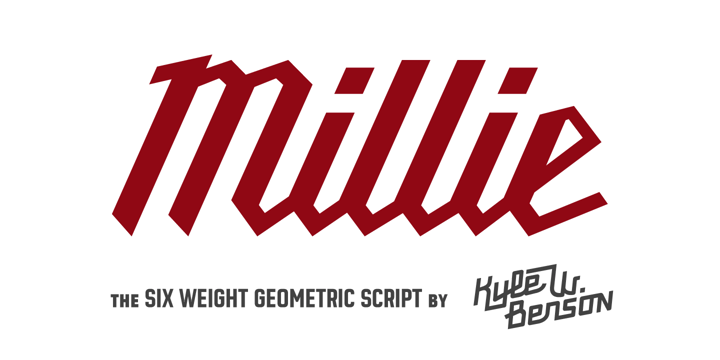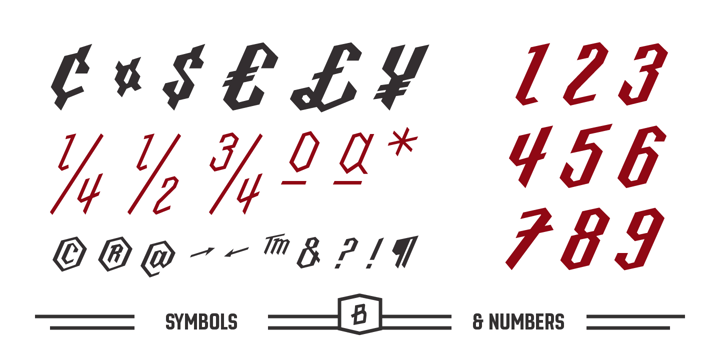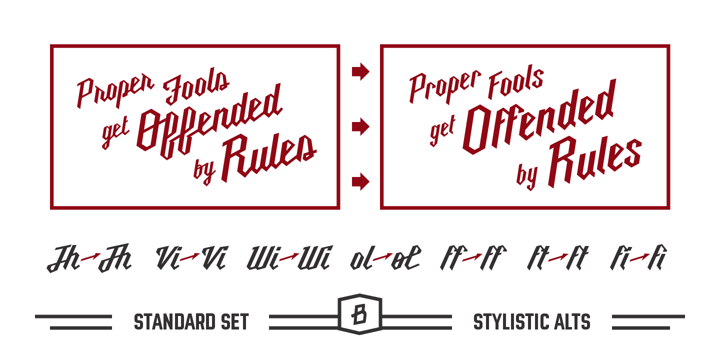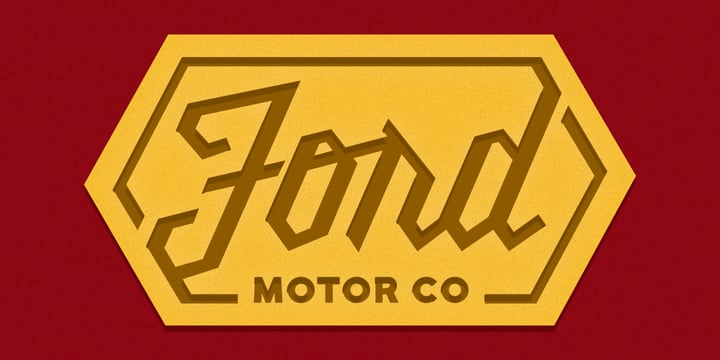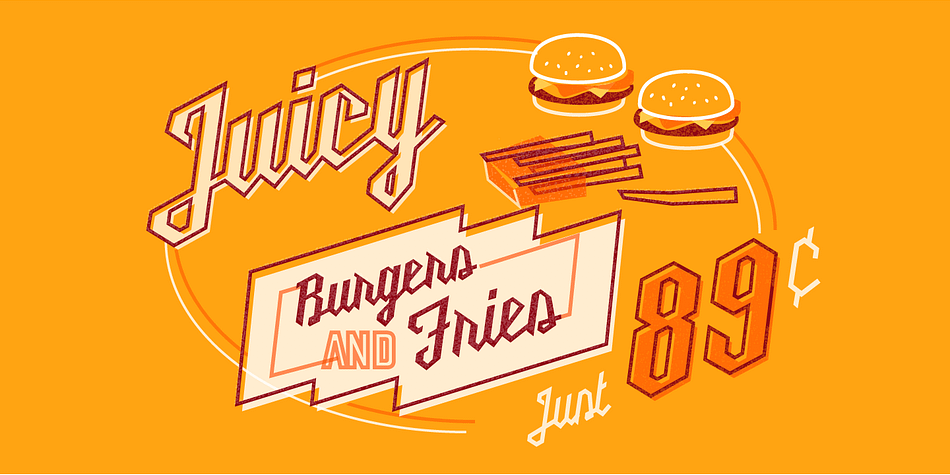
Millie
Font Family by Kyle Wayne Benson
Millie is a stressed, geometric script who spends her days as industrial lettering and her nights paired with blackletter on the patches of motorcycle gangs. Millie was weighted by the conventions of broad nib calligraphy, inspired by the Milwaukee Tools logo, and finds herself best used in logos and titles. She was designed to be used on about a 20 degree angle, though she looks just fine on a level plane.
By using opentype, many ligatures, and two sets of stylistic alternates, Millie was developed to look great with any string of letters. Access the first stylistic set for a disconnected script look, and the second set for even more connections and fluid script than standard. Millie Round takes the edge off a bit, giving the entire set a more approachable and versatile feel.